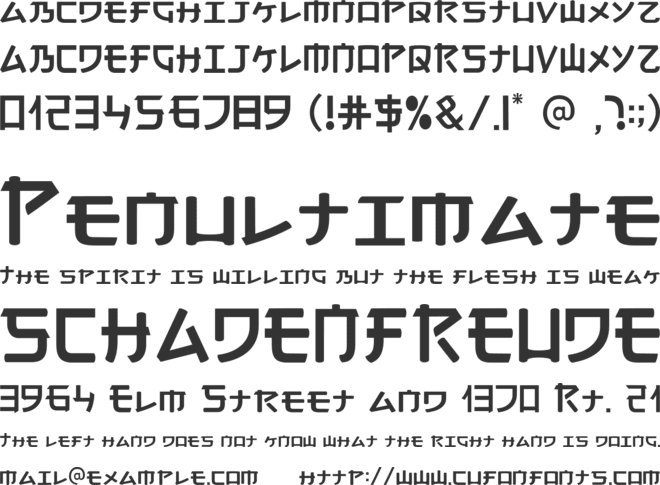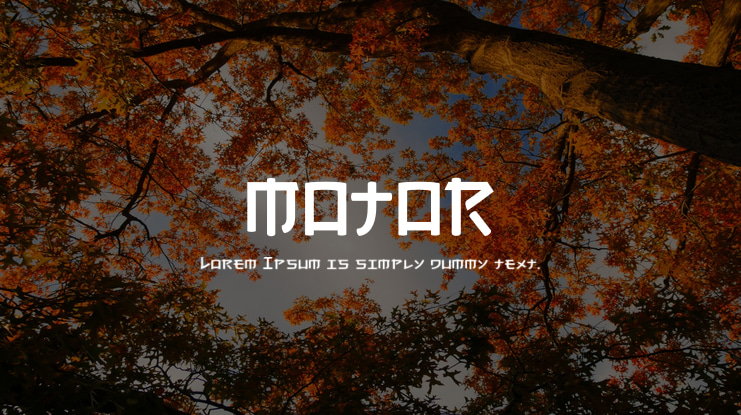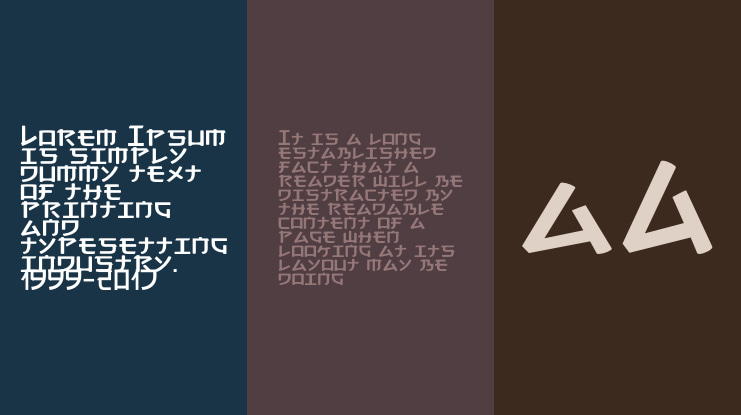
MOTOR Font
Motor is an incredibly unique, Japanese inspired display font. It will look stunning on any food menu, poster, flyer or print.Use this font for your designs and explore its endless possibilities.